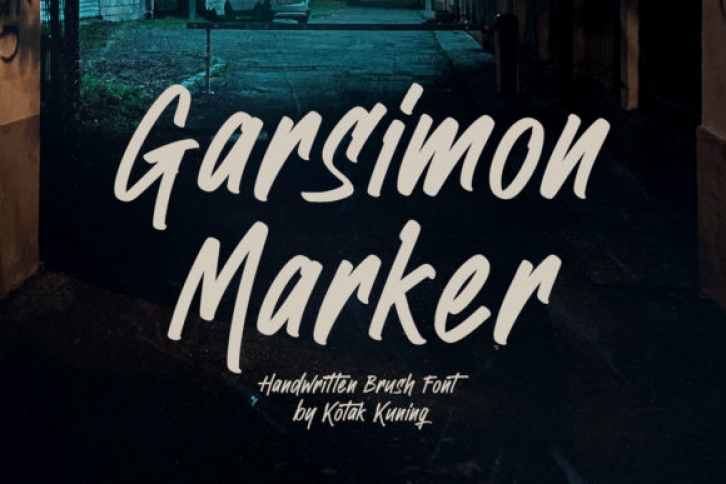
Garsimon Marker is a bold and brushed handwritten font. It features an incredibly classic style, while still keeping a casual vibe. Garsimon Marker is the perfect font for making original and outstanding designs.